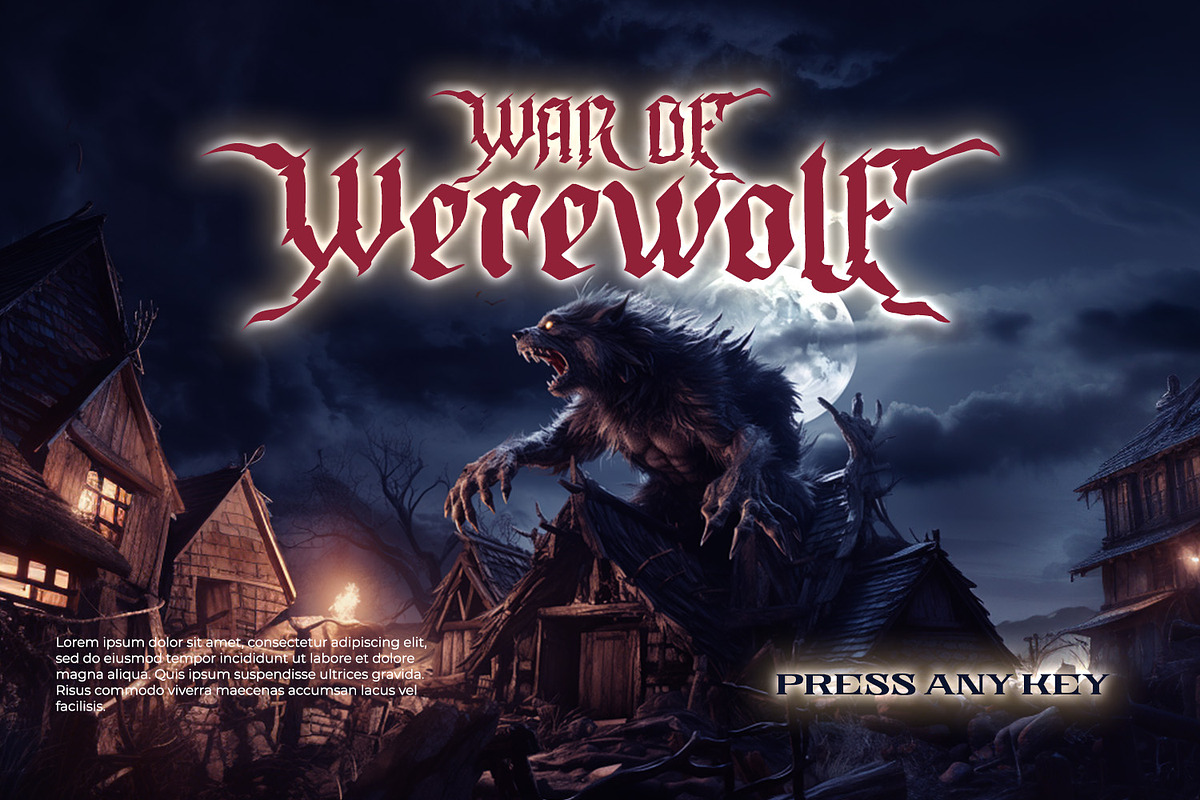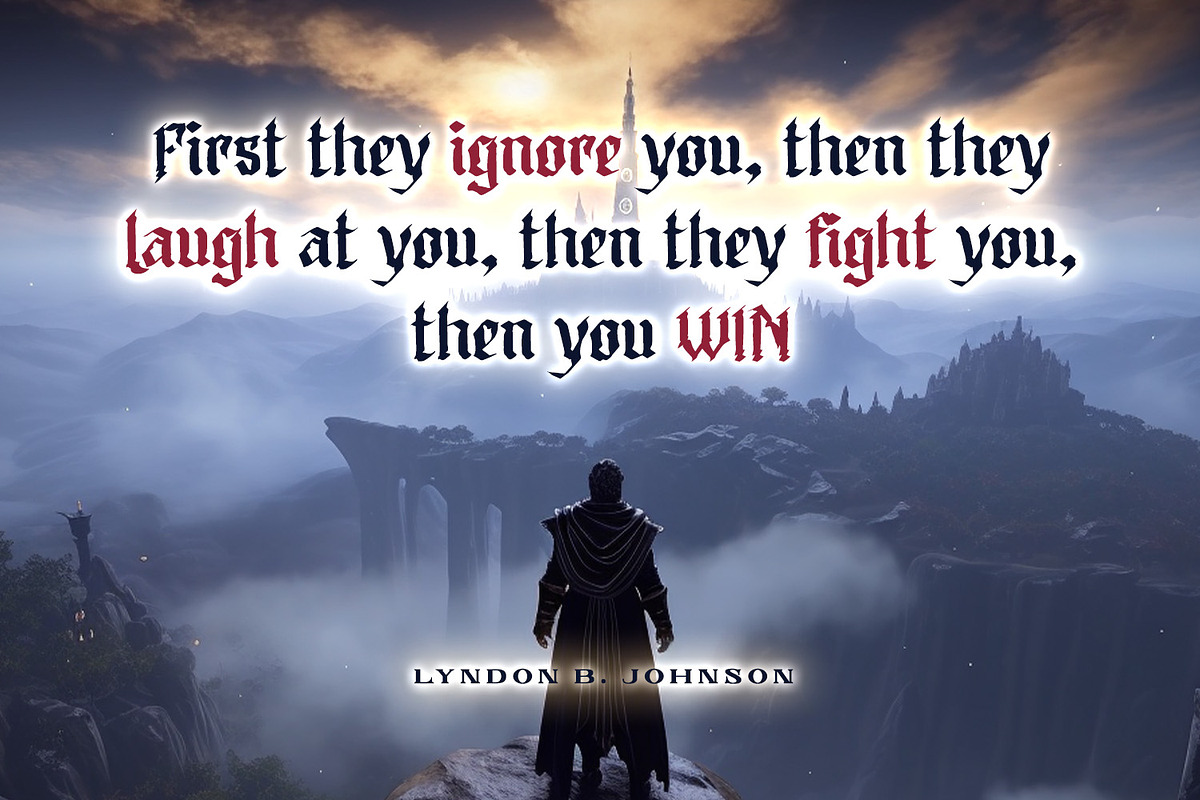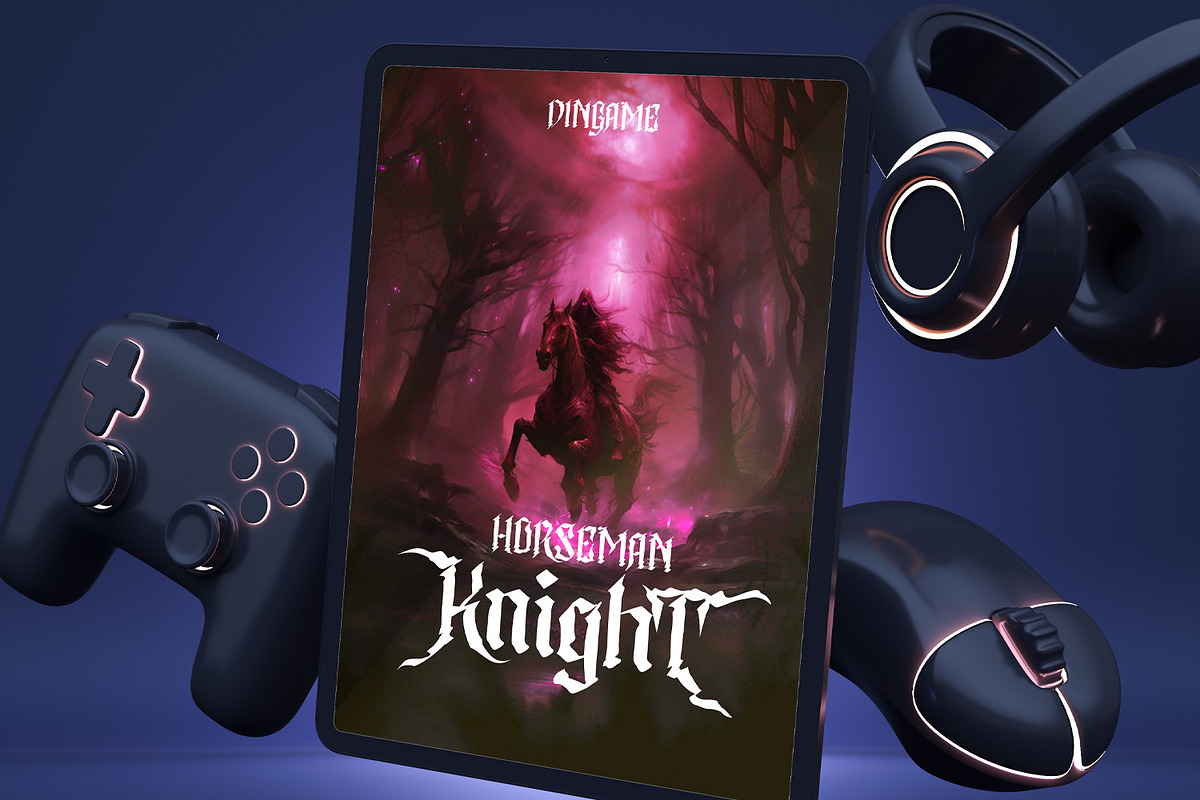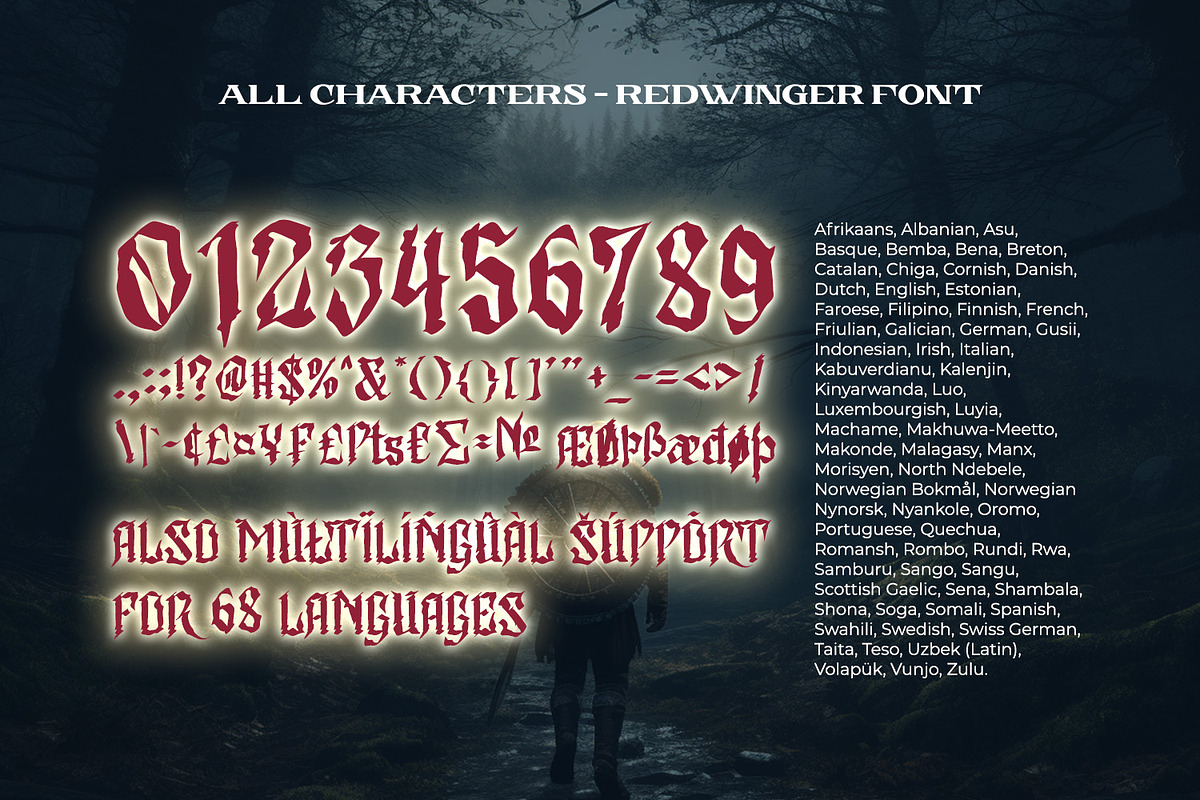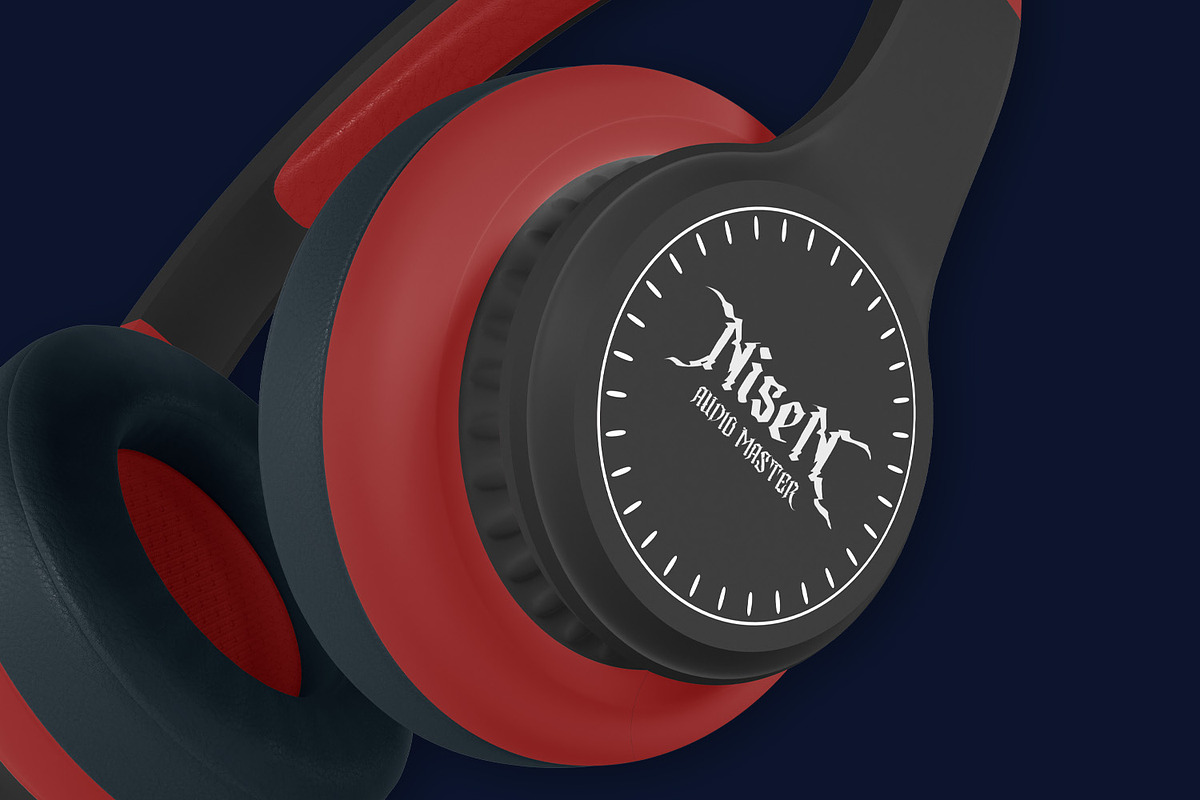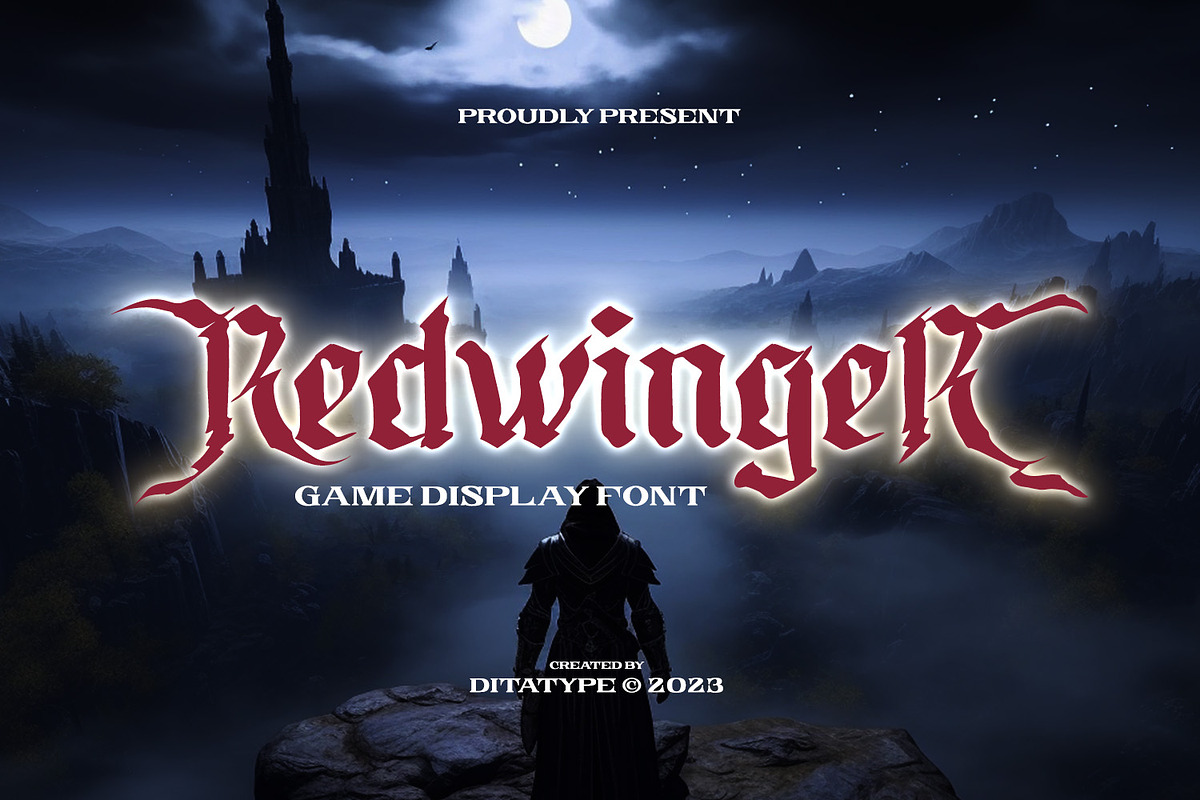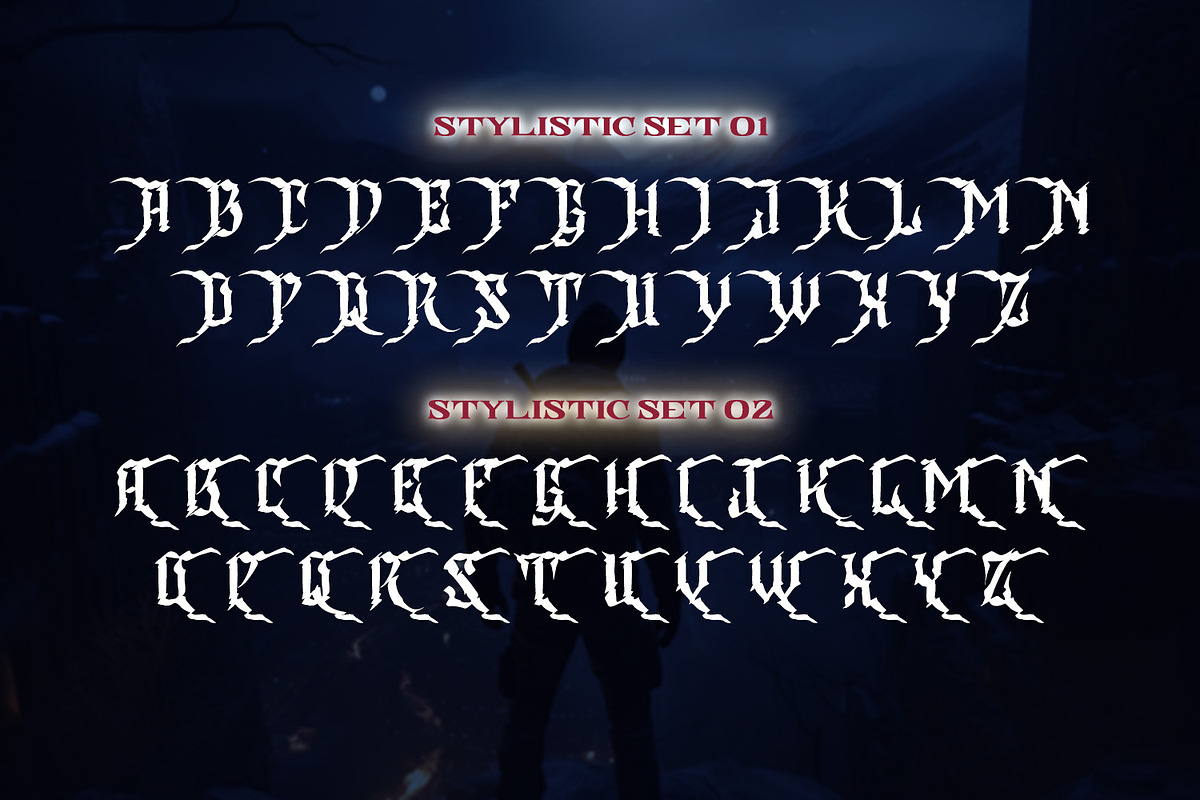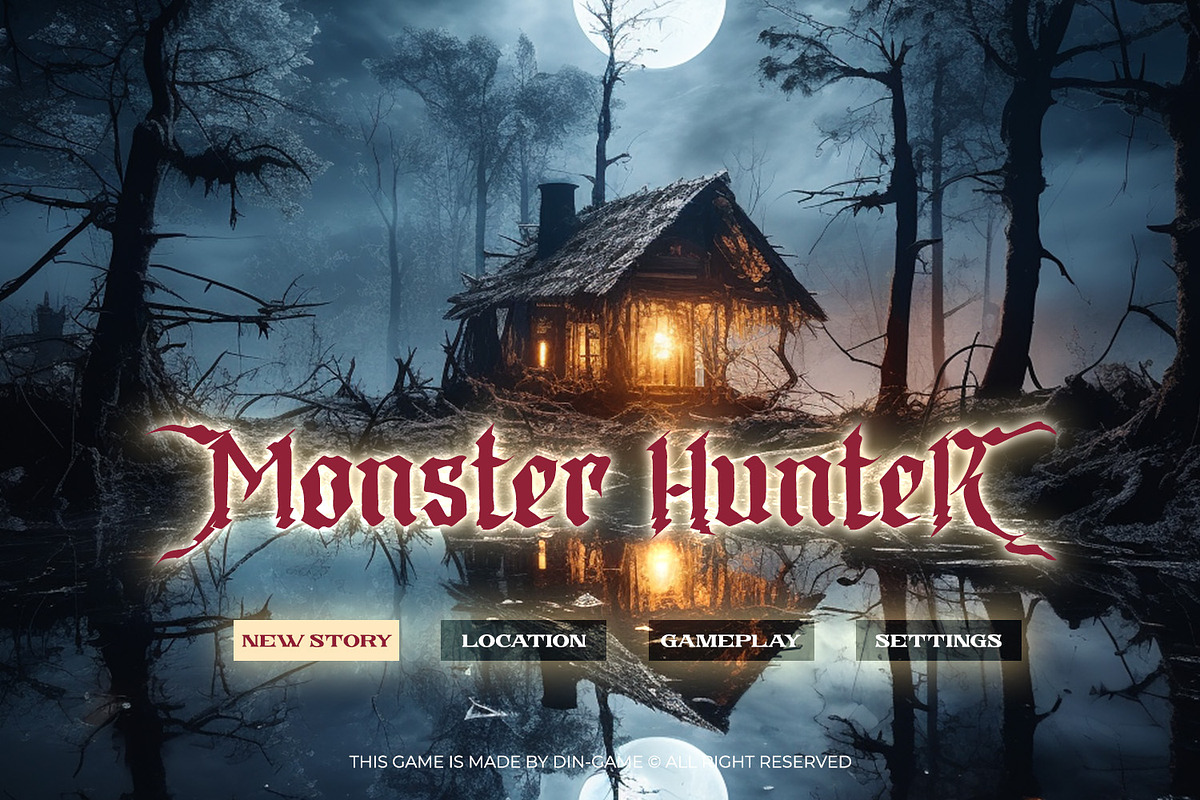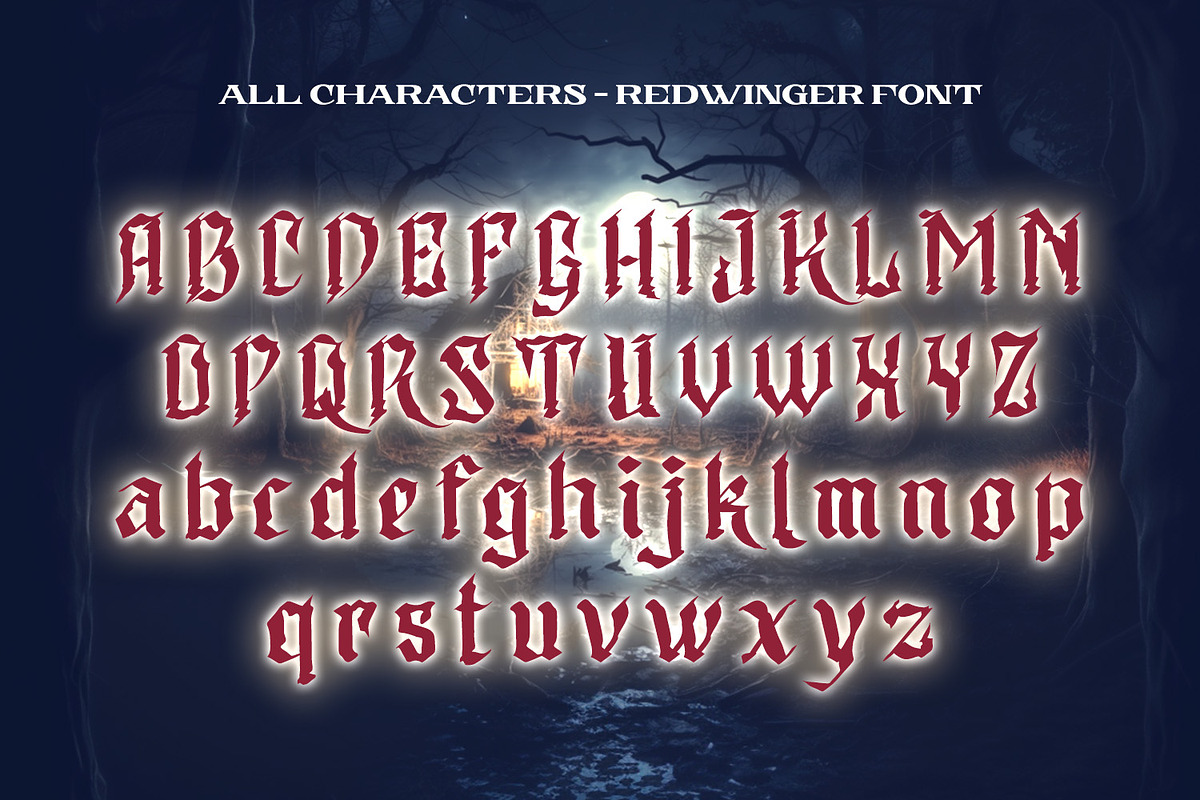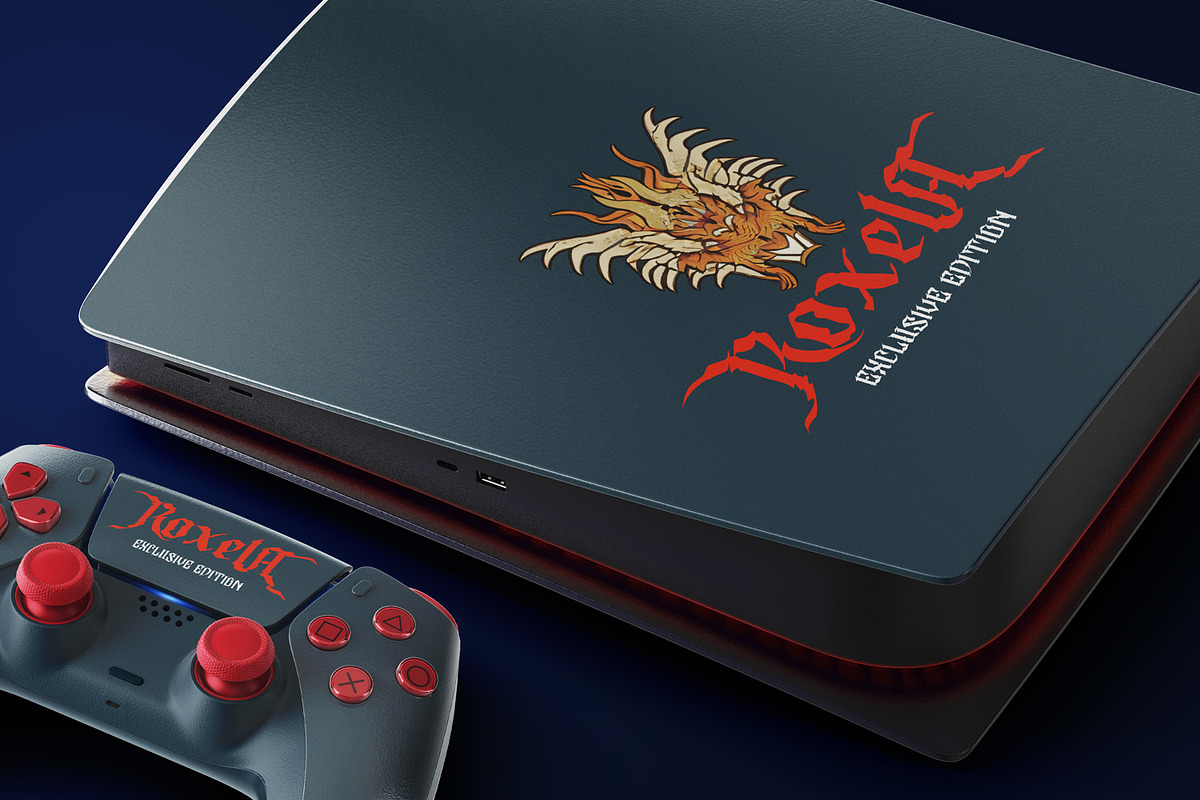
Redwinger
Redwinger is a captivating display font designed with a games theme, featuring different proportions of letters and sharp, uneven borders. This font showcases different proportions in its letterforms, adding a sense of variety and excitement to the font. Each uppercase letter has its own distinct width and height, creating a visually engaging composition. This design choice adds a playful and dynamic element to the font, reflecting the diversity and unpredictability of the gaming world. The sharp and uneven borders of Redwinger enhance its edgy and adventurous aesthetic. The jagged edges and irregular shapes give the font a distinctive and daring look, evoking a sense of action and intensity. This unique feature adds a touch of excitement and captures the spirit of gaming. For the best legibility you can use it in the bigger text. Enjoy the available features here.
- Stylistic Sets
Redwinger fits in headlines, logos, posters, titles, branding materials, print media, editorial layouts, website headers, and any other projects that aim to transport players into thrilling virtual worlds. Find out more ways to use this font by taking a look at the font preview.